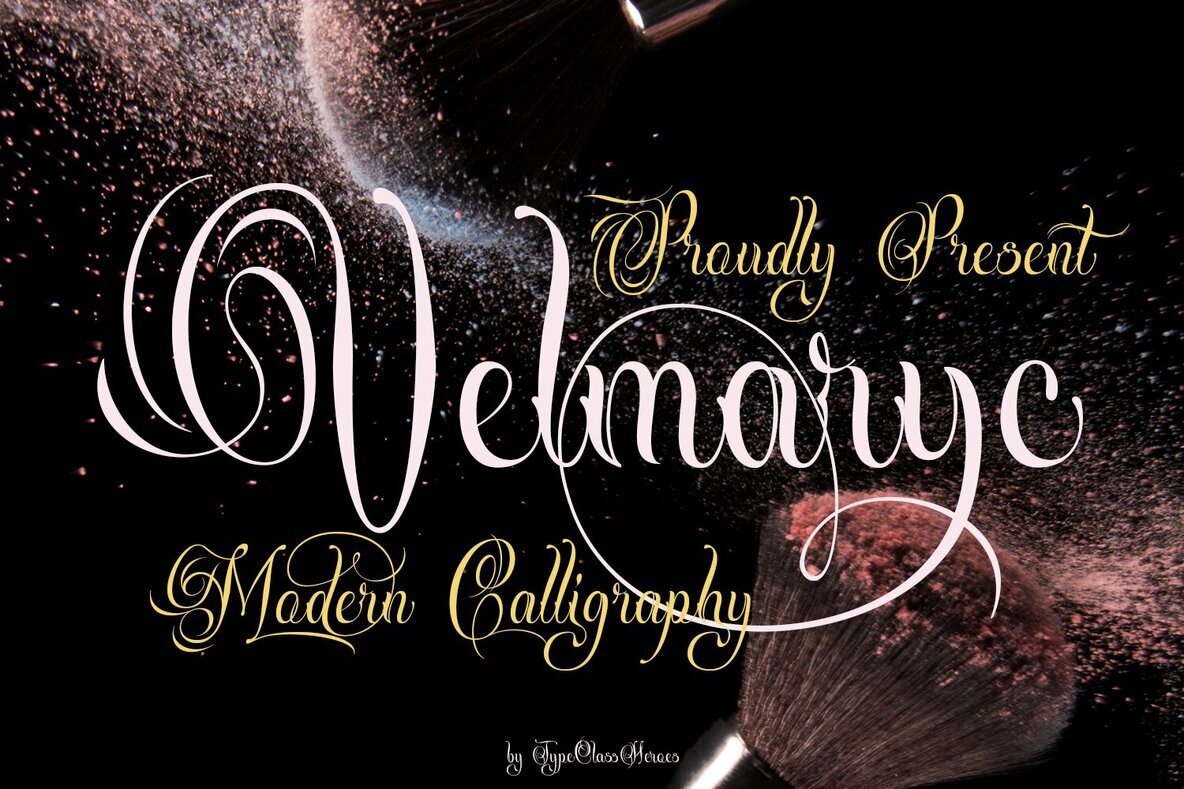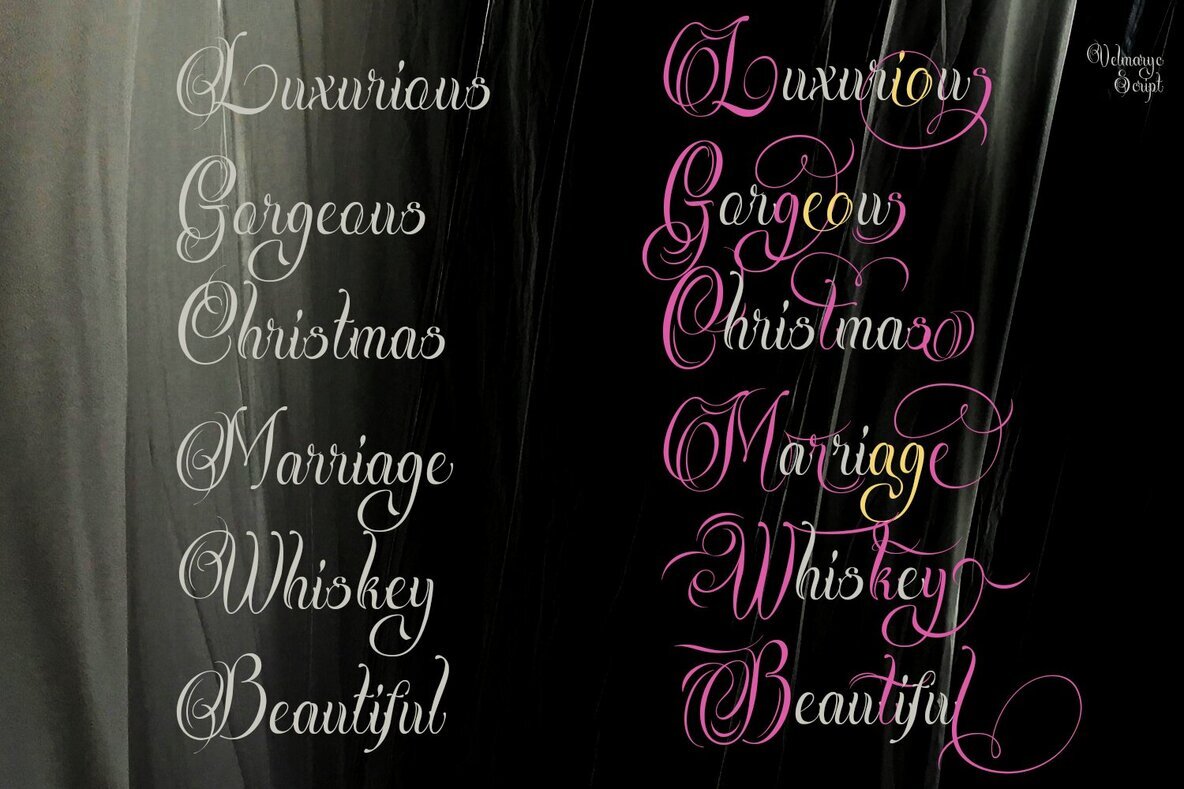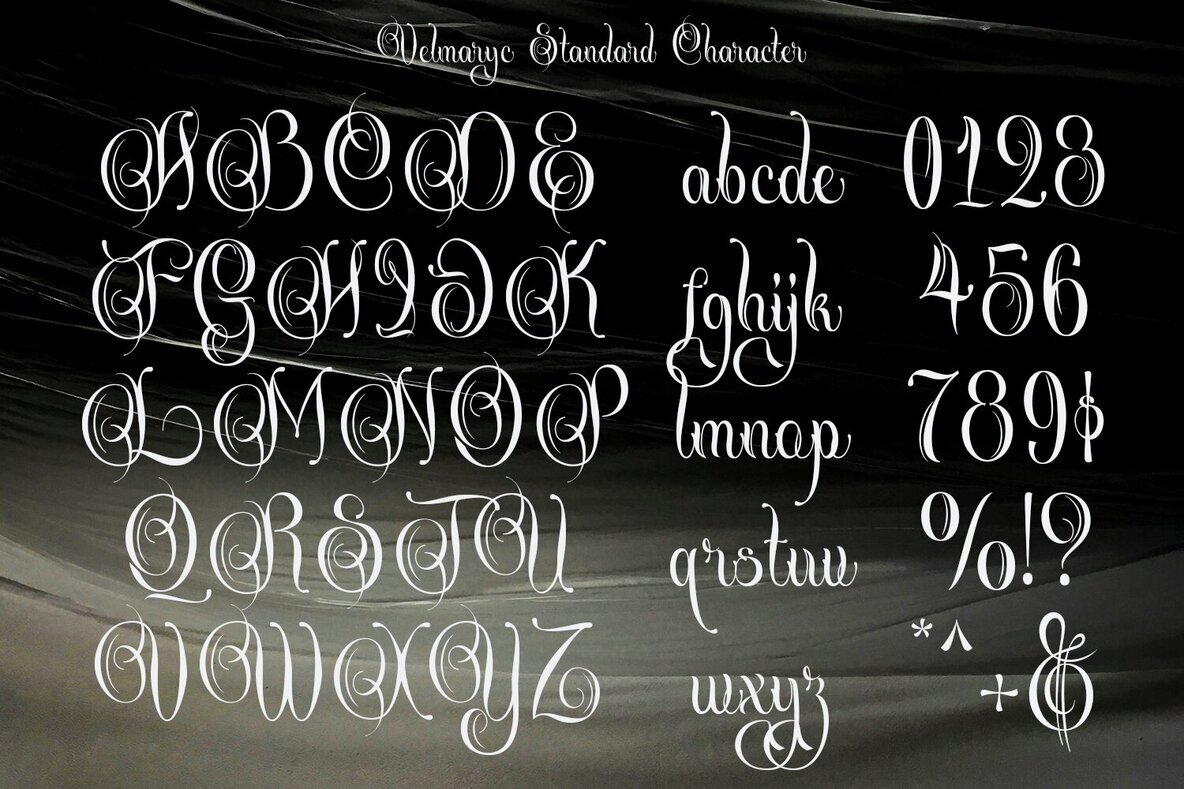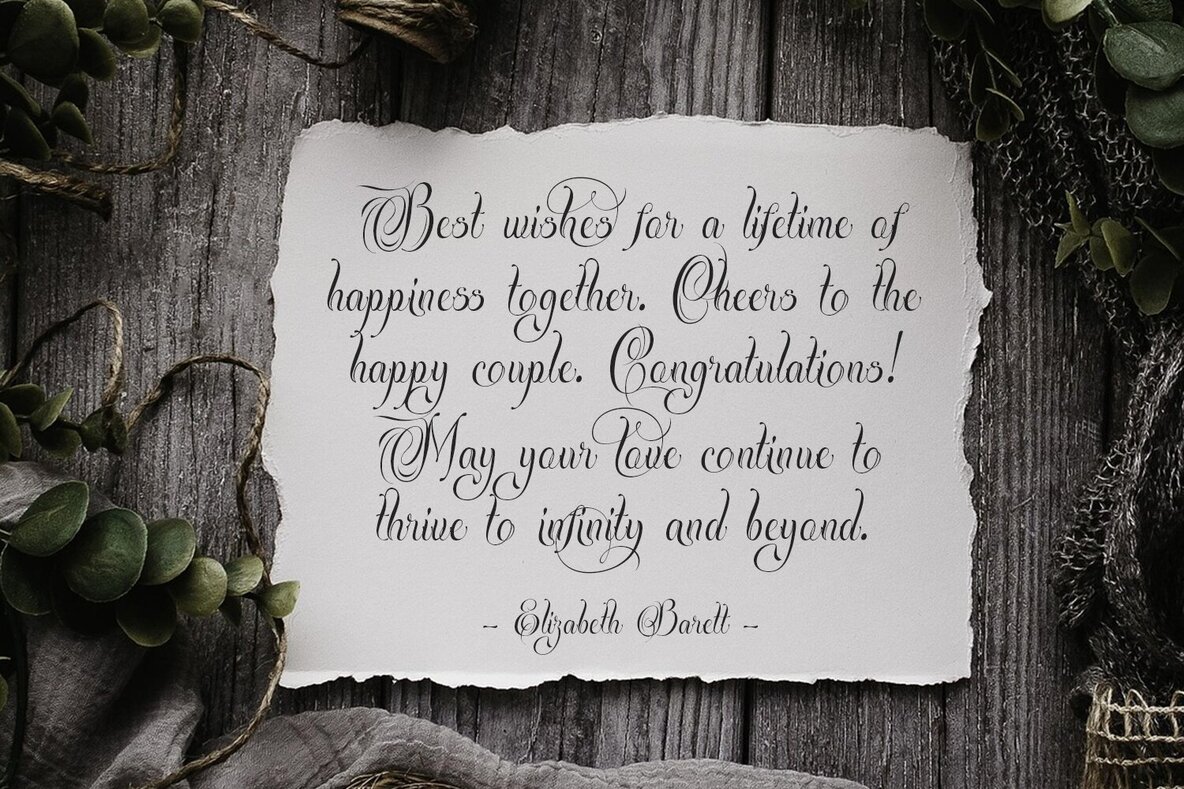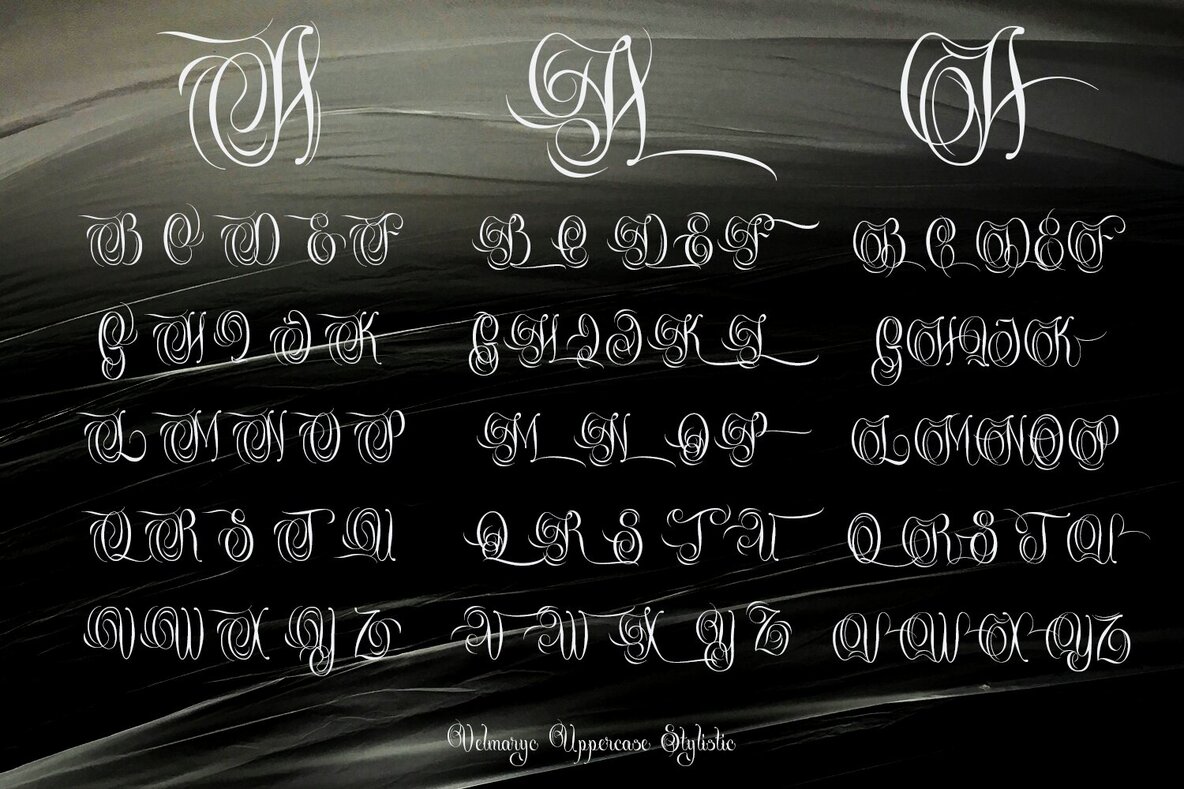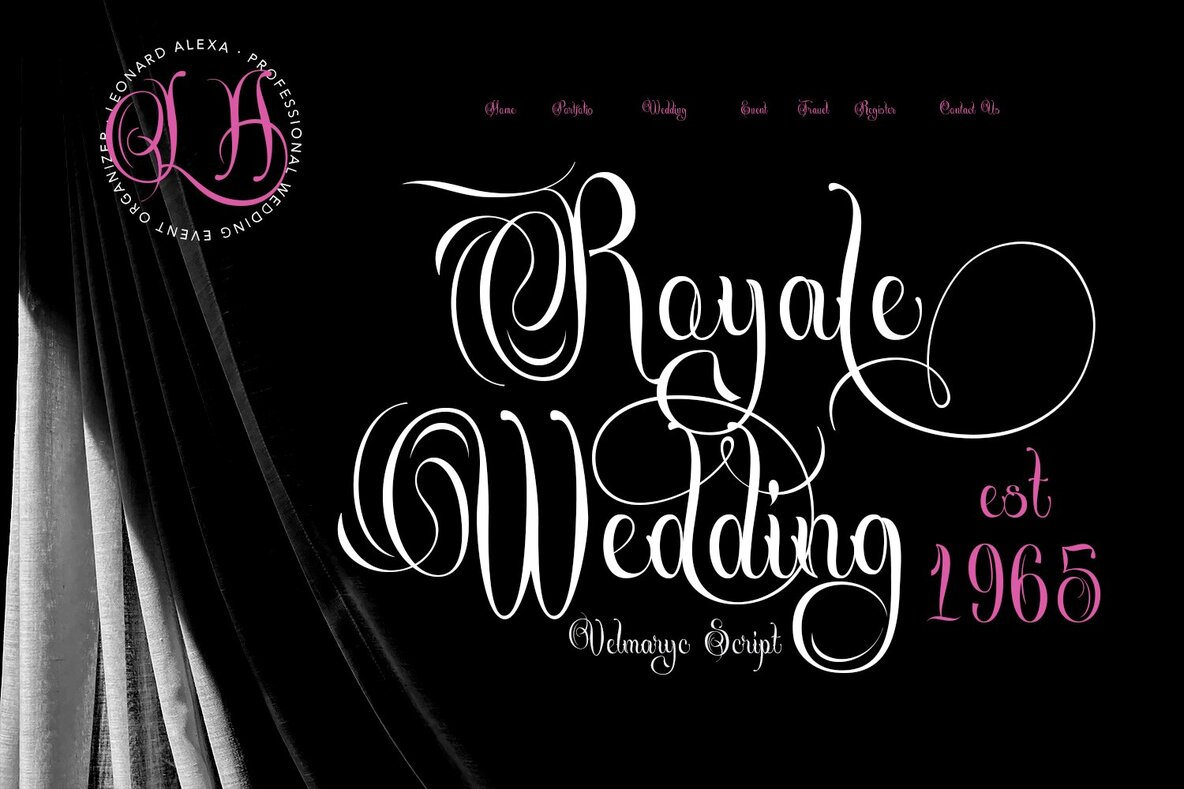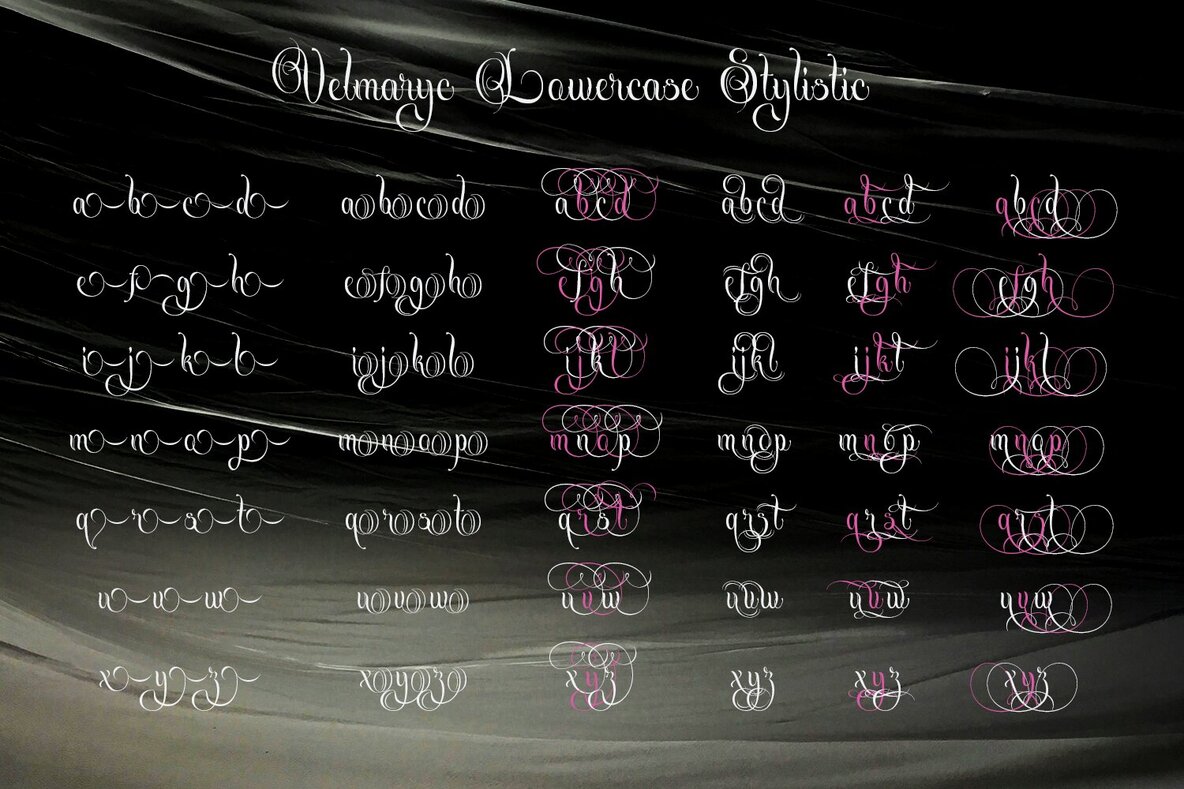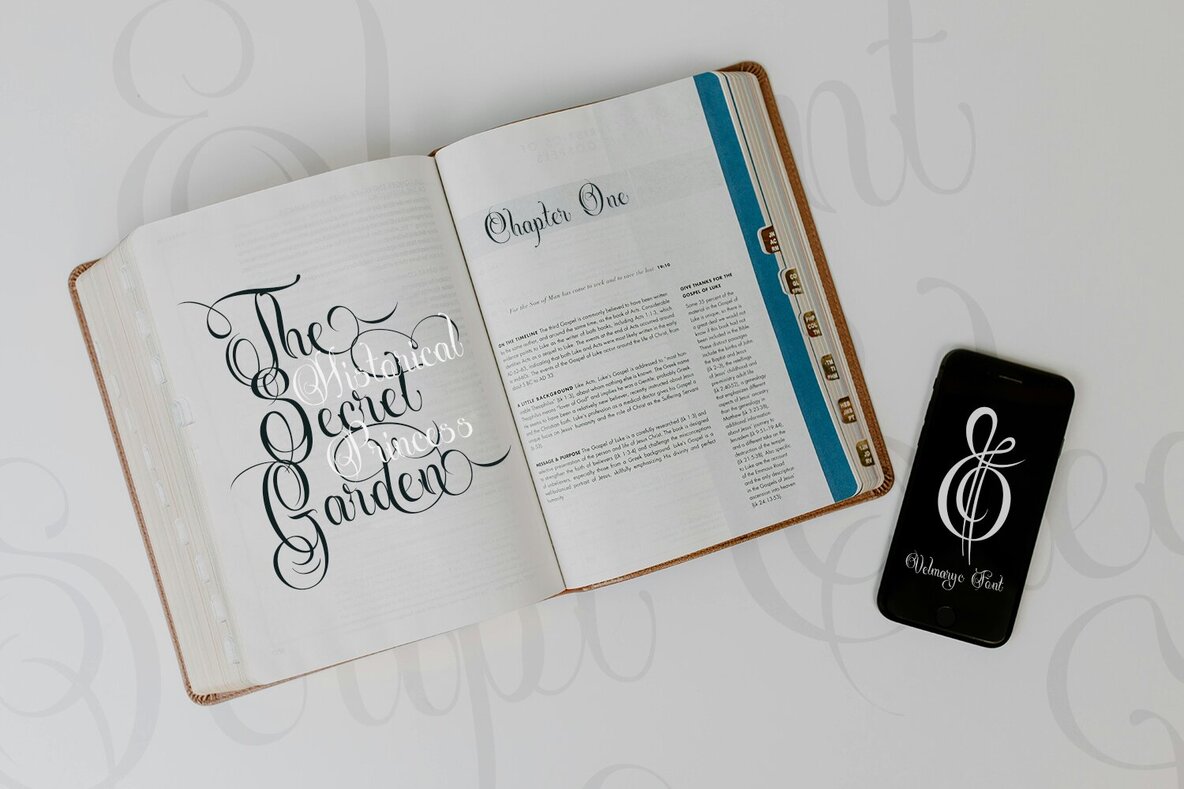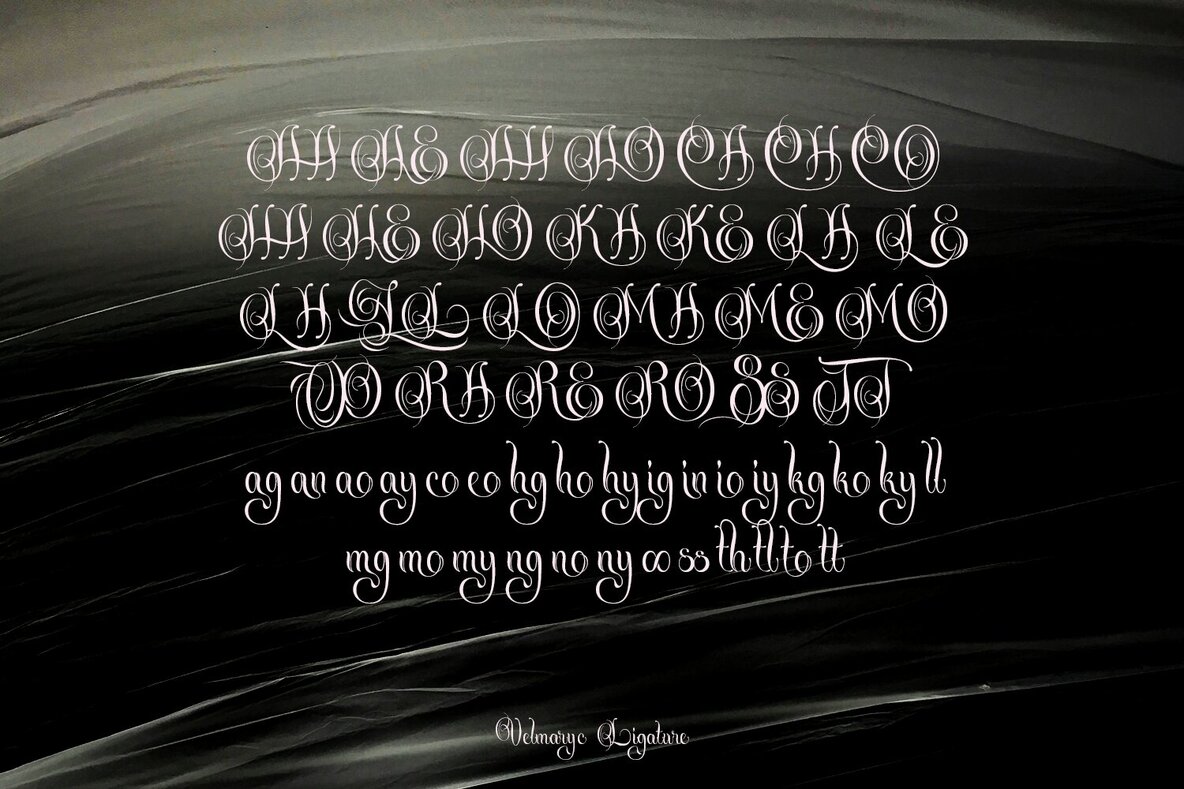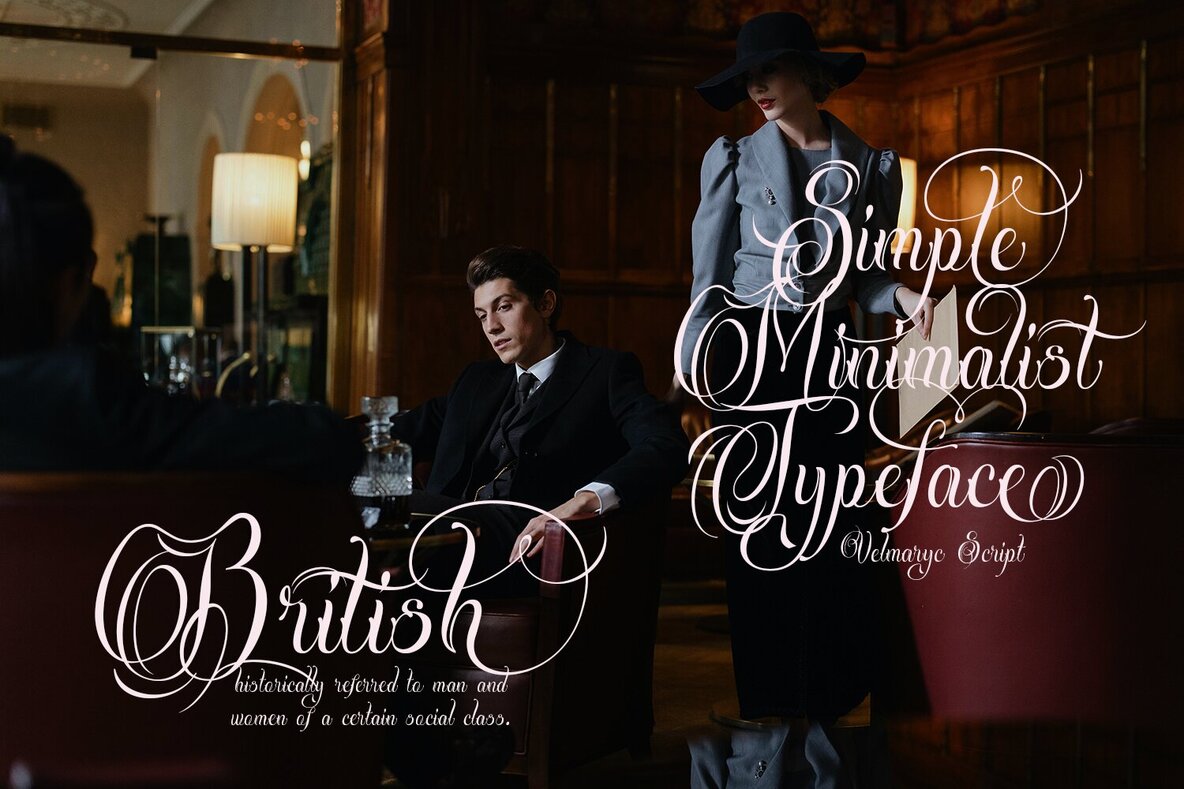
Velmarcy Font
Velmaryc Regular
Velmaryc Italic
Velmarcy merges thin lines, smooth curves, and precise joints for an elegant, refined appearance. This modern calligraphy font stands out with its balanced design, offering a chic solution for projects that demand a touch of sophistication. The contemporary character shapes lend themselves beautifully to luxurious and feminine themes, enhancing every letter with grace. Ideal for logos, wedding invitations, and exclusive branding, Velmarcy’s clean lines make it versatile and visually appealing. Its minimalist elegance supports both classic and modern design contexts, ensuring your message always feels polished.Velmarcy Modern Calligraphy Font